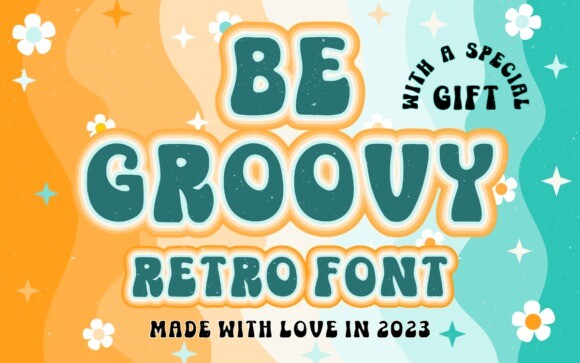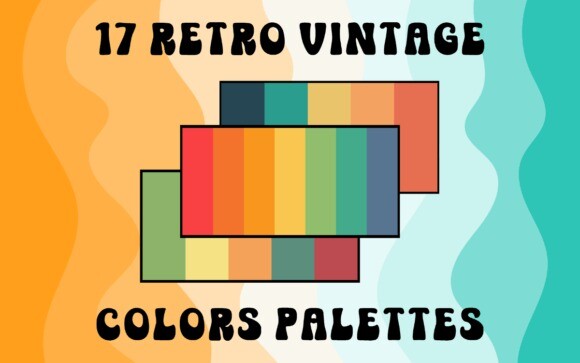
Be Groovy Font
Be Groovy font is a mesmerizing embodiment of the vibrant and free-spirited essence of the 1970s. Drawing inspiration from the era’s iconic design elements, this font encapsulates the groovy culture, psychedelic vibes, and funky aesthetics that define a generation. With its fluid strokes, curvaceous letterforms, and a touch of retro charm, “Be Groovy” transports you back to a time of disco balls, bell bottoms, and the essence of the counterculture.